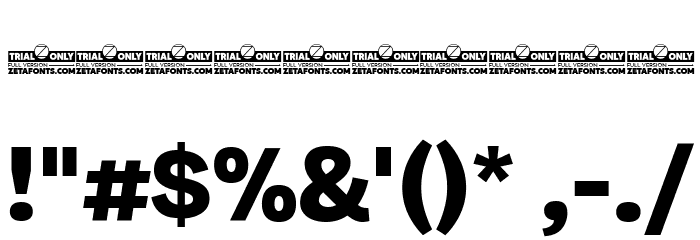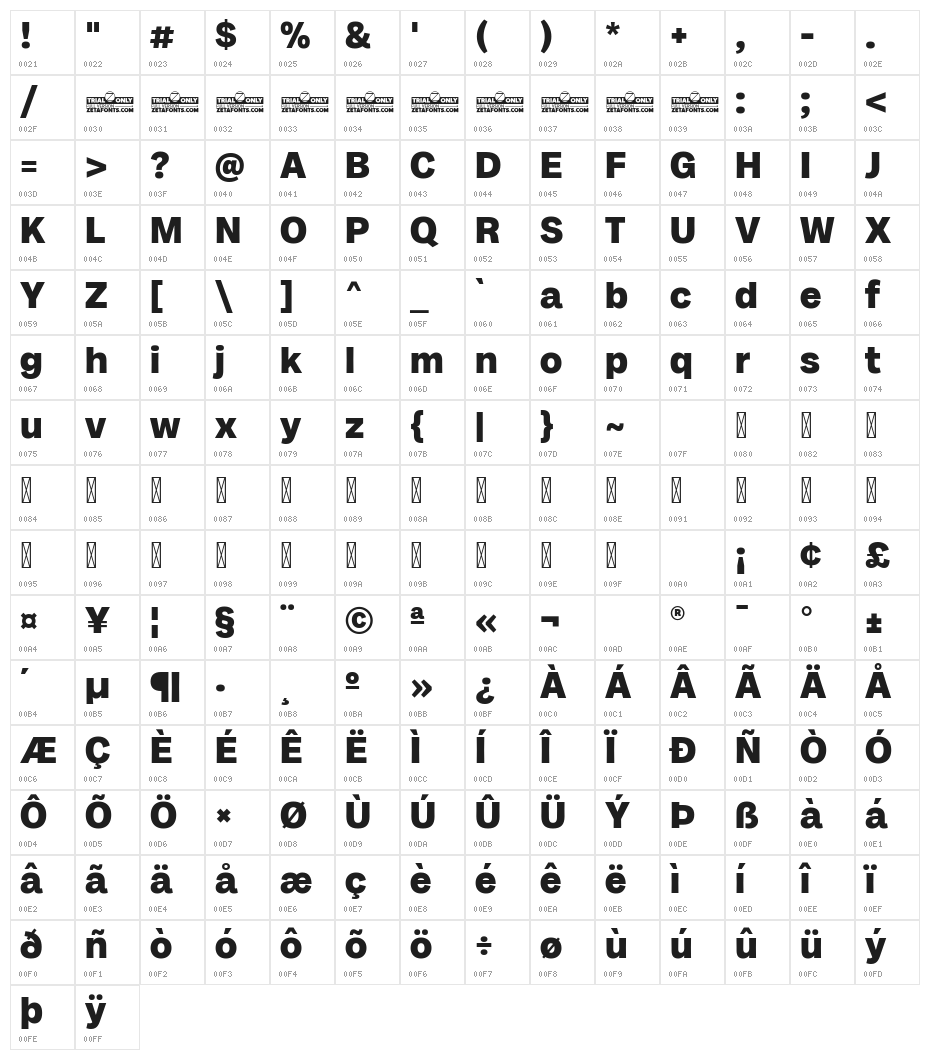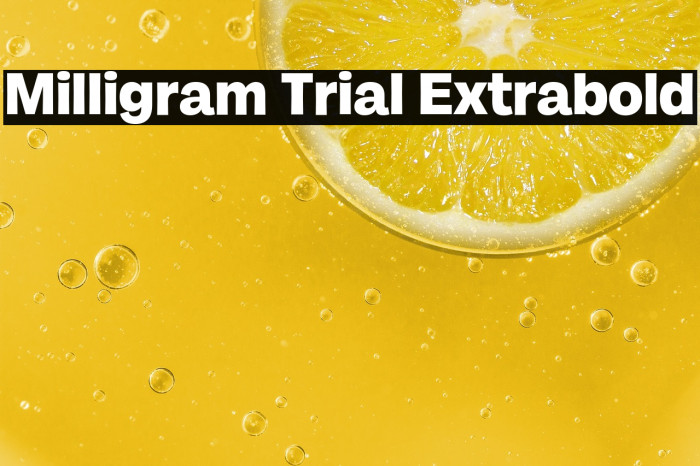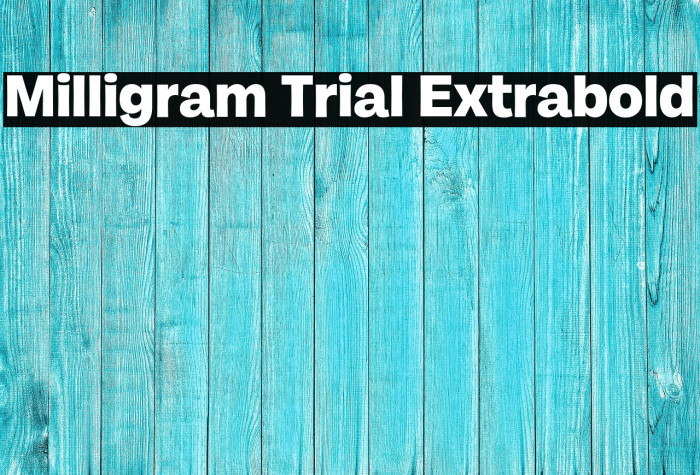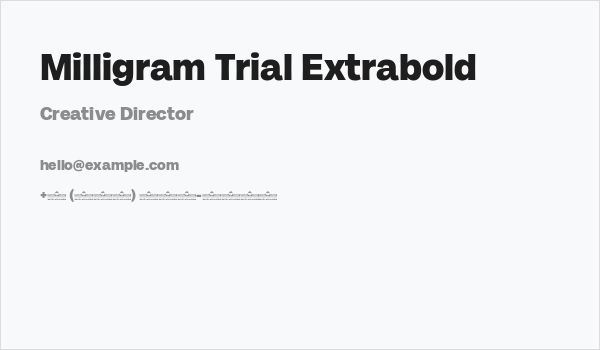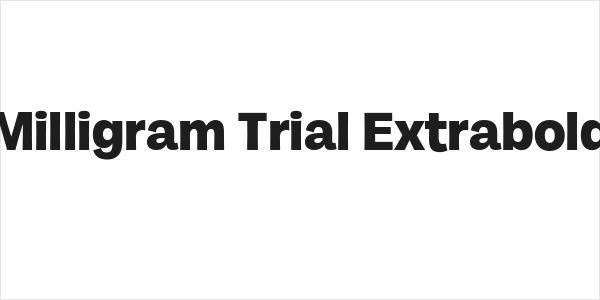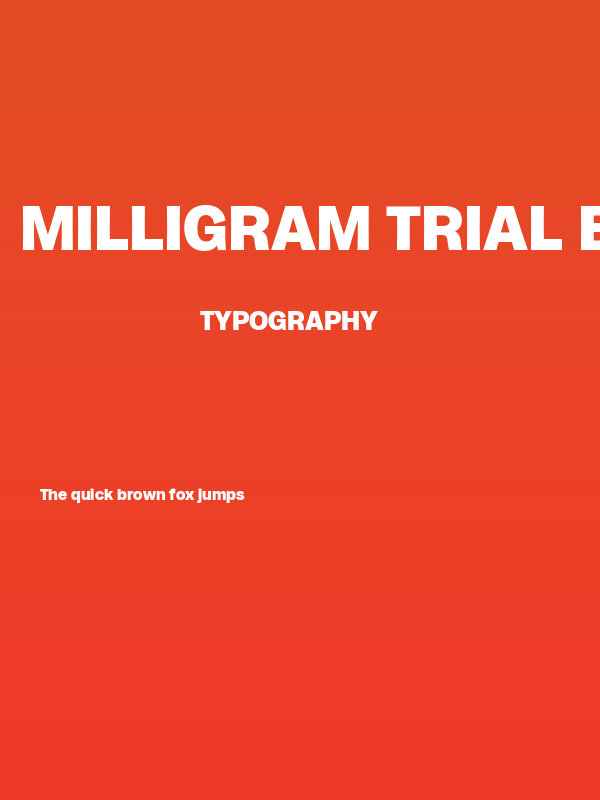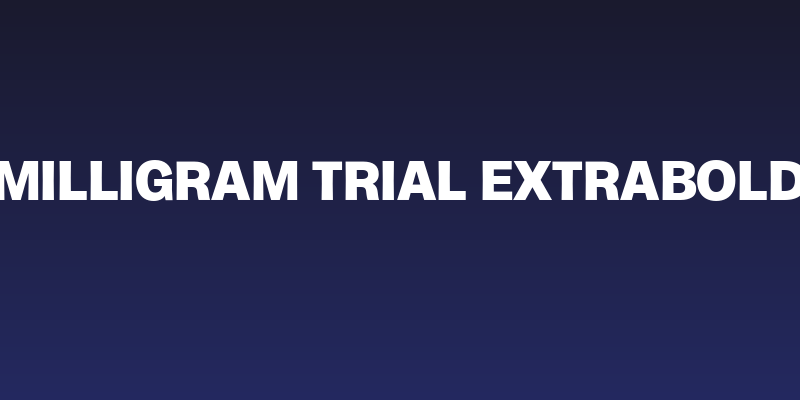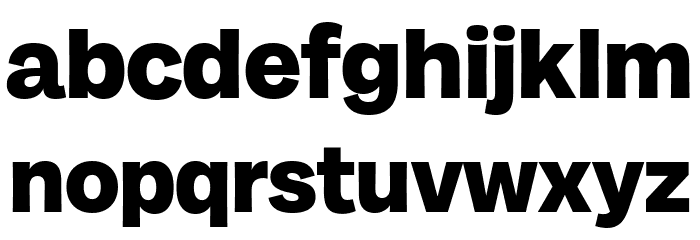
Milligram Trial Extrabold Font
Milligram Trial Extrabold Description
This font features a bold and robust design, characterized by thick strokes and a strong presence. It is a sans-serif typeface with a modern and clean aesthetic, making it highly legible and impactful. The characters are evenly spaced, providing a balanced and harmonious appearance. The uppercase and lowercase letters maintain a consistent weight, ensuring uniformity across different text sizes. The numerals and special characters are designed with the same boldness, enhancing the overall cohesive look of the font.